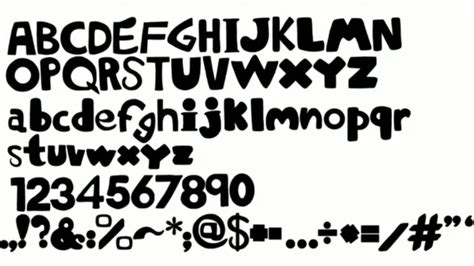
Hey there, **Readers**! Have you ever wanted to use the unique and quirky font from the viral Alphabet Lore series in your own projects? If you're a fan of the entertaining alphabet videos, you've probably wondered where you can get your hands on this eye-catching font. Well, you're in luck! In this comprehensive guide, I'll delve into the world of Alphabet Lore font downloads, offering you free and easy access to this popular typeface. As someone who analyzes and explores all things related to digital fonts, I'm excited to share my expertise with you.
Downloading the Alphabet Lore font opens up a world of creative possibilities, giving you the power to bring a touch of whimsical charm to your designs. Whether you're creating social media posts, crafting presentations, or designing websites, having this font at your disposal will add a unique touch to your work.
Exploring the World of Alphabet Lore Fonts
The Alphabet Lore font, with its distinctive style and playful characters, has captured the hearts of internet users worldwide. The font's popularity has surged due to its association with the viral series, driving widespread interest in its download and use.
Understanding the Alphabet Lore Font
The Alphabet Lore font is characterized by its bold, cartoonish appearance, featuring exaggerated features and a playful, almost whimsical feel. This unique style perfectly embodies the lighthearted and engaging nature of the animated series, adding a touch of fun to any text it graces.
The Appeal of Alphabet Lore Fonts
The appeal of Alphabet Lore fonts extends beyond their association with the popular series. Their distinctive style and playful design make them perfect for a variety of creative projects, from social media graphics to website designs. These fonts add a touch of personality and whimsy to any visual element, making them a favorite choice for designers and creative enthusiasts.
Tips for Using Alphabet Lore Fonts Effectively
1. Consider Font Pairing
Font pairing is crucial for creating visually appealing designs. While the Alphabet Lore font is unique, consider pairing it with other fonts to create a harmonious aesthetic. Experiment with different font combinations to find a pairing that complements your project's overall theme.
2. Mind the Context
Remember that font choice should always align with the context of your design. While Alphabet Lore fonts might be perfect for playful projects, they may not be suitable for formal documents or presentations. Consider the overall tone and message you want to convey when selecting a font.